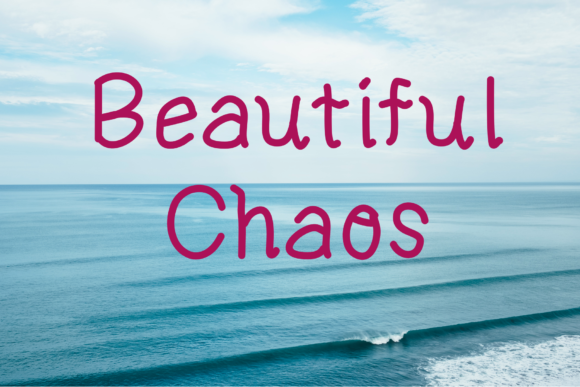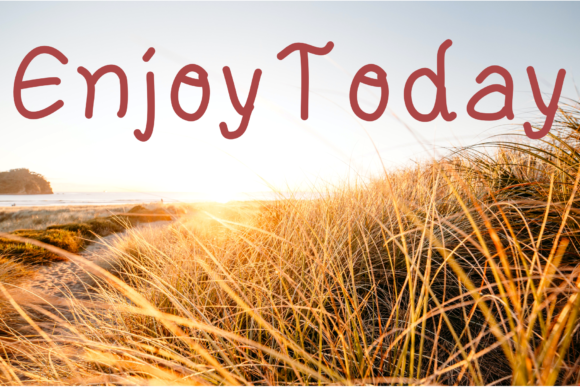
The Perfect Font for Your Creative Expression
Have you ever sat down with a blank page, a spark of an idea, and a blank stare staring back at you? You know the one – that feeling of wanting to create something truly special, but not knowing where to start? This is where the magic of typography comes in. A well-chosen font can elevate your design, breathe life into your words, and transport your audience to a new world.
Enter Amoriny Font, a sweet and friendly handwritten font designed to bring out the best in your creative endeavors. Its natural and unique style makes it incredibly fitting to a large pool of designs, from elegant wedding invitations to playful children’s books. With Amoriny Font, the only limit is your imagination!
Amoriny Font Key Features
- Font Family: Amoriny Font is a unique, hand-drawn font family designed for various typography needs.
- Character Set: The font includes a wide range of characters, including Latin, Cyrillic, and Greek alphabets, as well as punctuation and symbols.
- Unique Characteristics: The font’s distinctive, hand-drawn style and subtle imperfections give it a warm, human touch that sets it apart from more formal fonts.
Amoriny Font Review
Overall, I found the Amoriny Font to be a beautiful and elegant addition to any design project. The unique blend of modern and vintage elements ✨ makes it a standout choice for those looking to create a sophisticated and refined look.
The font’s versatility is one of its greatest strengths, with a wide range of weights and styles available to suit any design need. The subtle flair and flourishes add a touch of whimsy and personality to text, making it perfect for creative projects.
- Unique blend of modern and vintage elements
- Wide range of weights and styles available
- Subtle flair and flourishes add personality to text
- May be too ornate for some design applications
- Some weights and styles may be too similar to distinguish
- Lack of bold, condensed styles for headings
While the Amoriny Font has some limitations, its overall elegance and sophistication make it a great choice for designers looking to add a touch of class to their projects. With a little creativity and experimentation, this font is sure to become a staple in your design toolkit.